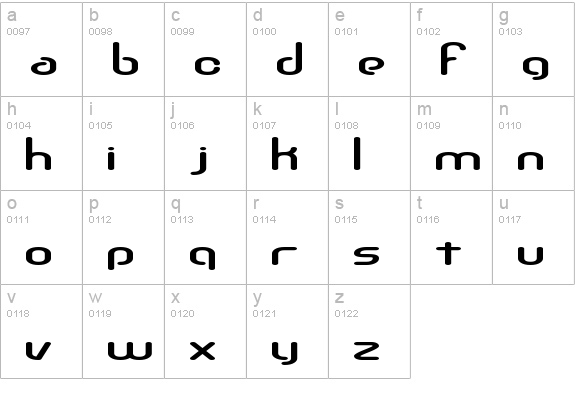
Telephasic BRK Font Details
Telephasic BRK font is a visually striking typeface that will captivate your audience with its modern and futuristic design. With its bold and angular shapes, this font exudes a sense of confidence and sophistication, making it perfect for various creative projects. What sets Telephasic BRK font apart is not just its impressive aesthetics, but also the fact that it is freely available to download. Yes, you read that right – this incredible font can be yours without any cost or restrictions. It is the ideal choice for designers, artists, and anyone who wants to add a touch of uniqueness to their work without breaking the bank. Whether you are working on a logo, website design, poster, or any other project that requires a standout typography, Telephasic BRK font will undoubtedly make a lasting impression. Its sharp lines and distinct shapes create a sense of movement and energy, adding a dynamic touch to any composition. Downloading Telephasic BRK font is a breeze. Simply head over to FontsMarket.com, a trusted source for high-quality fonts, and find this gem among their vast collection. Once downloaded, you can start unleashing your creativity and experimenting with different styles and layouts. So, why settle for ordinary when you can have extraordinary? Elevate your design game with Telephasic BRK font – a free, visually stunning typeface that will take your projects to the next level. Embrace its modernity, embrace its uniqueness, and let your creativity soar.